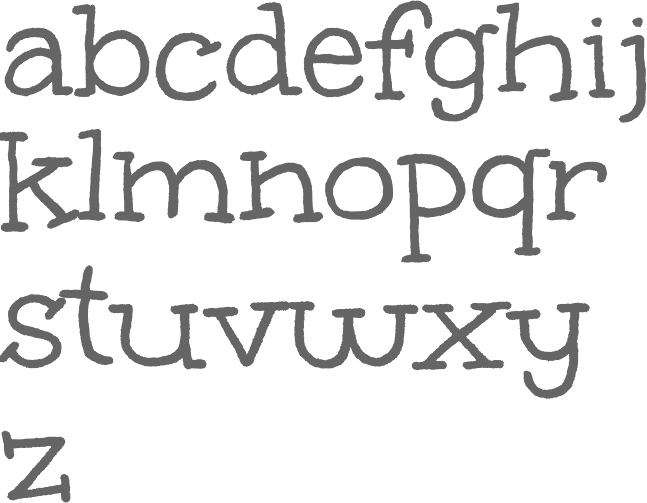
Neapolitan
American type foundry which appeared at MyFonts in 2012. Its designers include Stuart Sandler, David Cohen and Crystal Kluge. The initial set of fonts, all in the style of Sandler's Font Diner fonts, include Irish Grover Pro (2010, a bouncy typeface by Cohen and Sandler), Satisfy Pro (2011, a connected retro script typeface by Cohen and Sandler), Crafty Girls Pro (2010, a children's party script by Crystal Kluge and Stuart Sandler), and Slackey Pro (2010, a paper cut out style typeface made by Cohen and Sandler).
Codystar (2012, a dot matrix typeface by Crystal Kluge) is free at Google Web Fonts. Sunshiney Pro (2012, hand-printed), Unkempt Pro (2012, +Bold), Neapolitan (2012) and Walter Turncoat Pro (2012) were co-designed by Stuart Sandler and David Cohen. Homemade Apple Pro (2012) is a hand-printed typeface by Stuart Sandler. The teenage script typefaces Princess Sofia Royale (2012), Butterfly Kids Pro (2012) and Emily's Candy Pro (2012) and the bohemian typefaces Chelsea Marketplace (2012) and Chelsea Market Open (2012) are due to Crystal Kluge and Stuart Sandler. Fredericka the Greatest (2011-2012) is a beautiful sketch face.
Typefaces from 2013 by Stuart Sandler include Skranji Pro (angular display face), Griffy Pro (with David Cohen), Seaweed Script Pro (with David Cohen) and Rochester Pro (with Gillian Fisher).
In 2017, Stuart Sandler designed Sausage Jubilee.